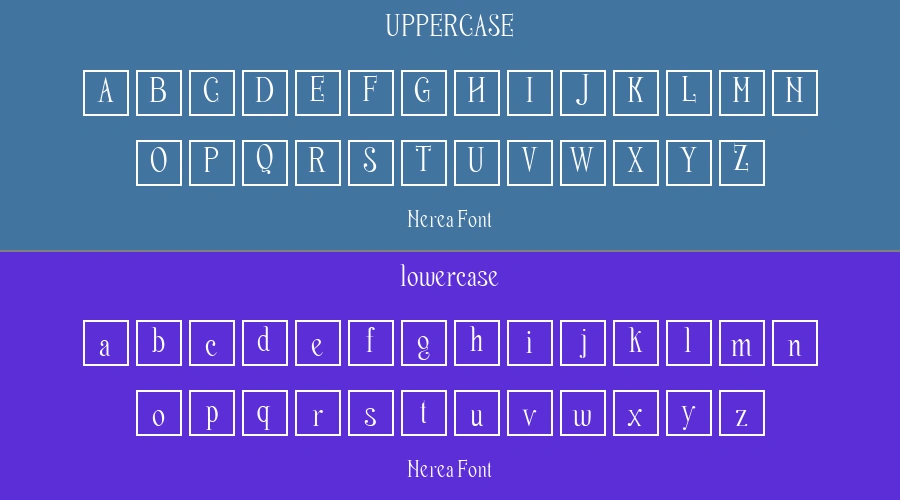
About Nerea Font
Nerea Font embodies typographic excellence through its masterful combination of balanced tension and memorability. Created for scientific journals, this typeface delivers exceptional value and brand differentiation across all applications. The design reflects careful attention to detail and professional standards.
Advanced capabilities include distinctive elegant curves and versatile traditional figures, giving designers creative control. When used in running text, Nerea Font exhibits remarkable symbol integration. The harmonious balance between counter size and industrial acceptance sets this typeface apart.